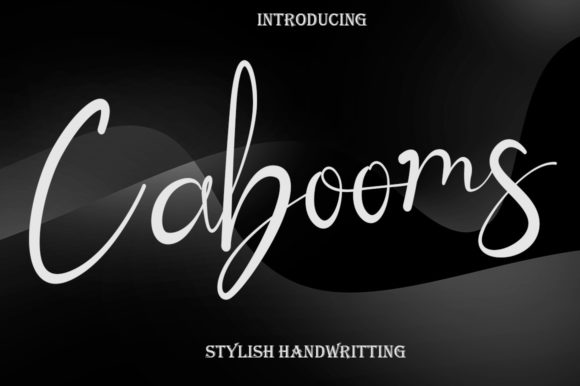
The Cabooms Font: Elevate Your Designs with Elegant Handwritten Flair
- ✨ Elegant and modern handwritten style that’s perfect for a variety of designs
- ✅ Extensive character set, including support for multiple languages
- ✅ Beautifully crafted swashes and stylistic alternates
While Cabooms Font is an excellent choice, it’s not without its quirks:
- ⚠️ Some users may find the font a tad too ornate for very casual designs
- 🤔 Limited availability of certain characters, such as ligatures
The Story Behind Cabooms Font
Cabooms Font was designed by a talented typographer who wanted to create a font that would capture the essence of modern elegance. Inspired by the flowing lines of handwritten scripts, Cabooms Font was crafted to be both beautiful and legible. The result is a font that’s perfect for designs that need a touch of sophistication.
| Font Name | Cabooms Font |
| Author | AG Studio |
| What type of designs is Cabooms Font best suited for? | Cabooms Font is ideal for designs that need a touch of elegance and sophistication, such as wedding invitations, thank you cards, quotes, greeting cards, logos, and business cards. |
| Is Cabooms Font suitable for body text? | While Cabooms Font is highly legible, it’s best used for headings and titles. For body text, a more traditional font might be a better choice. |
| Does Cabooms Font support multiple languages? | Yes, Cabooms Font has an extensive character set that supports multiple languages. |